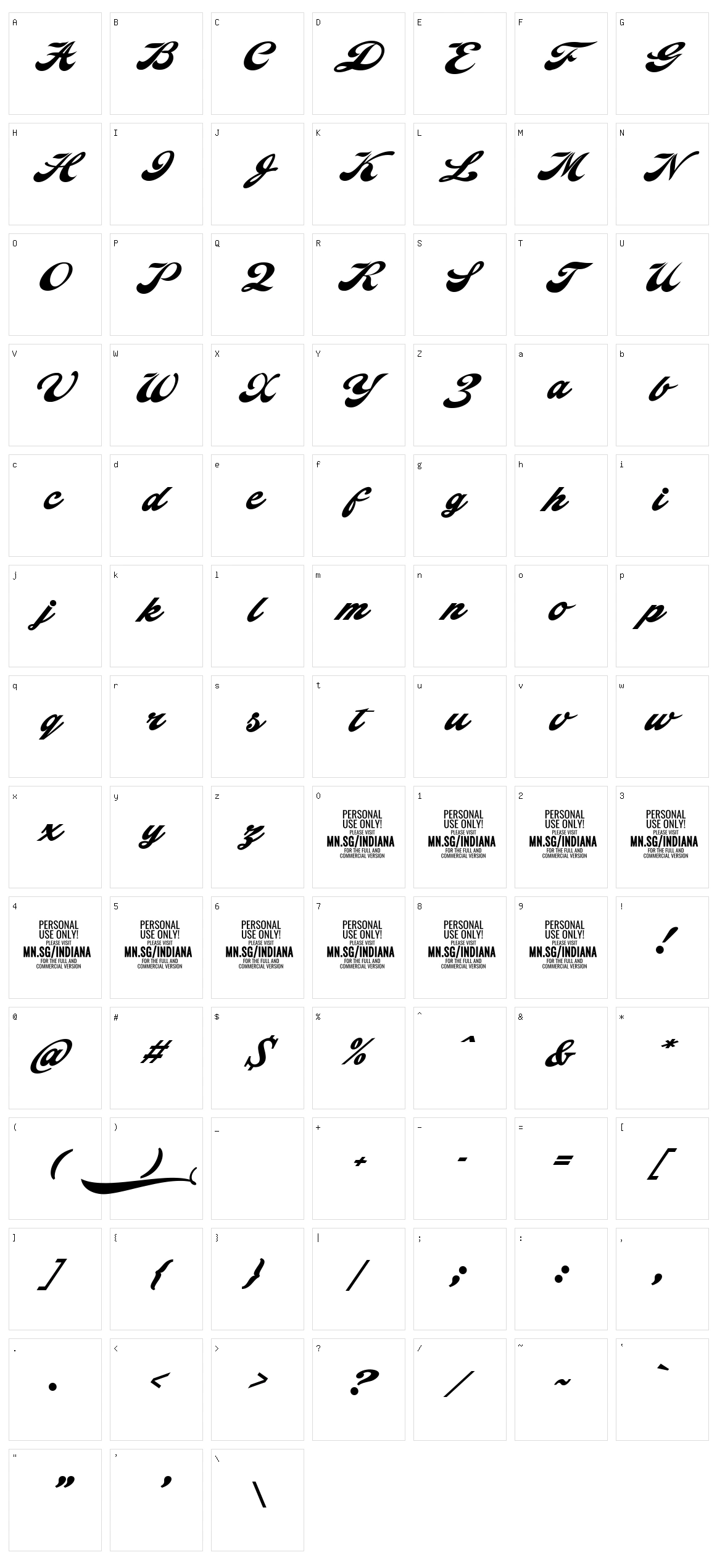
In a classic logotype style, Indiana Script is a sharp and steady typeface created by Måns Grebäck.
With its bold brush strokes and vintage tilt, this typeface works great in old-style logos and headlines.
It contains ligatures and alternate characters, and supports a very wide range of languages.
Write _ after a word to get a swash.
Example: Indiana_
With ligatures activated, write _ and a number for more swashes.
Example: Visual_2 Music_6